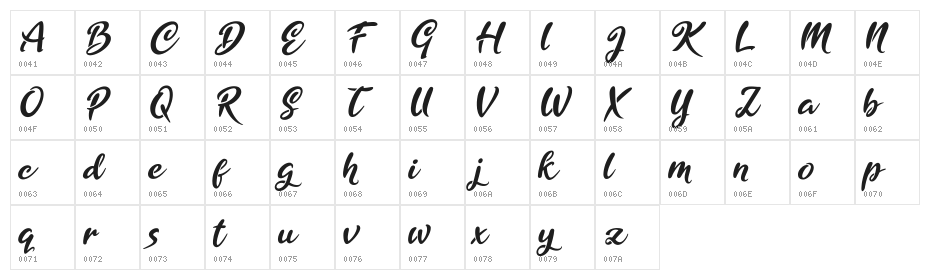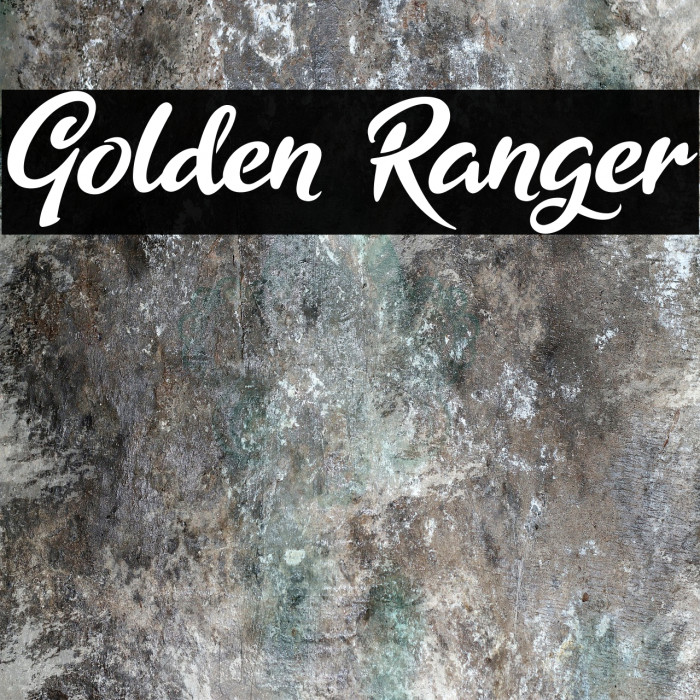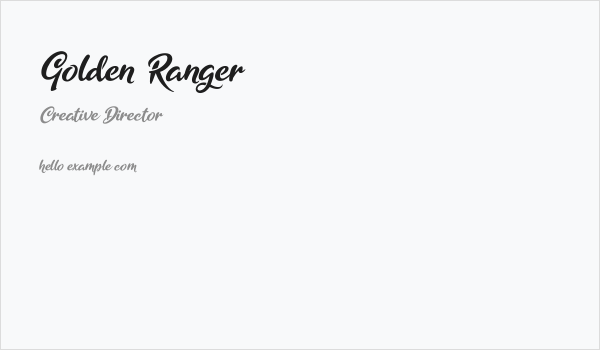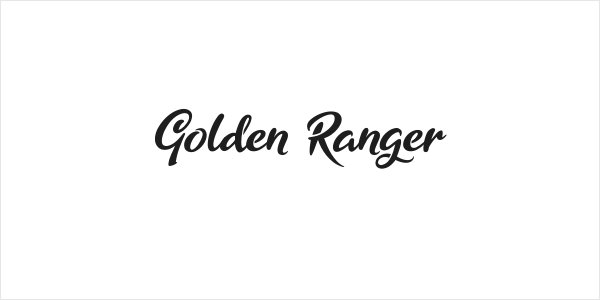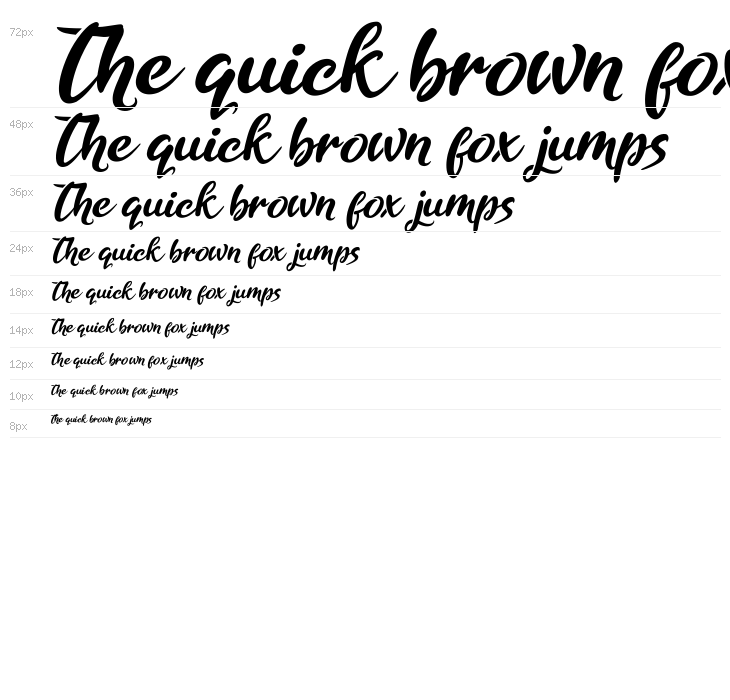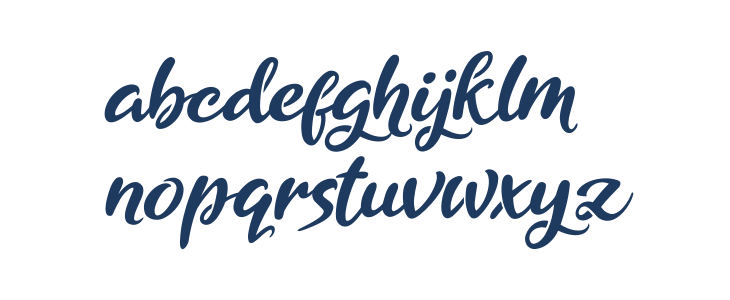
Golden Ranger Font
Golden Ranger Description
This font features a bold and expressive script style that exudes elegance and flair. The characters are interconnected with smooth, flowing strokes, creating a sense of movement and fluidity. The uppercase letters are slightly more ornate, with sweeping curves and loops, while the lowercase letters maintain a consistent rhythm and balance. The font's bold weight enhances its visibility, making it suitable for impactful designs. Its handwritten appearance adds a personal touch, making it ideal for creative projects that require a touch of sophistication and charm.
| Proposed Projects | Ideal for wedding invitations, branding, logo design, and greeting cards. |